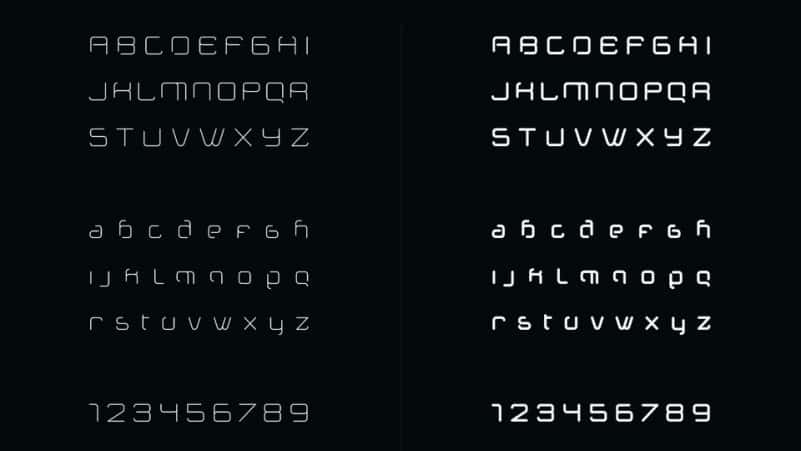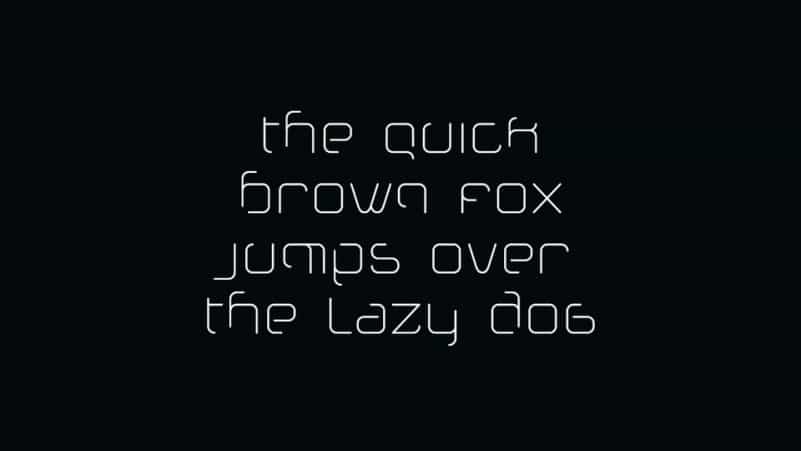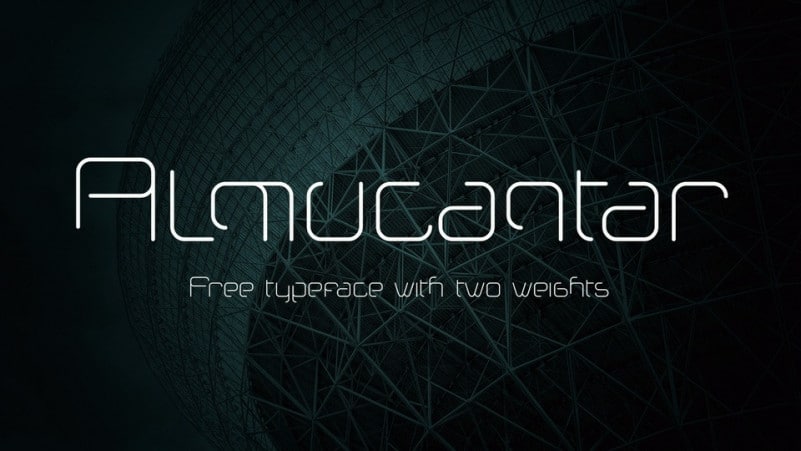
Almucantar Display Font
Almucantar Display Font is a futuristic font with minimalist, wide letters. Made from font designer named Molten Core. A free modern font family with techno sci-fi look. The typeface comes with two weights and is great for posters, headlines and logo design.